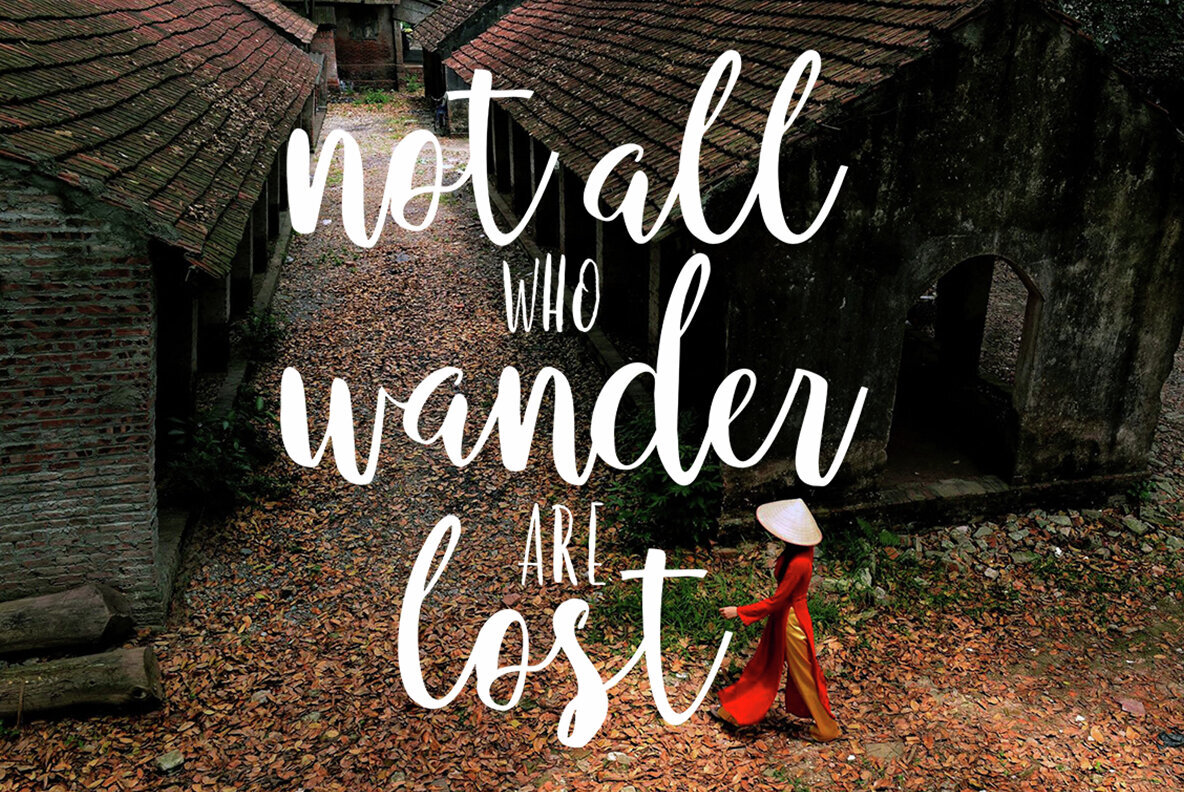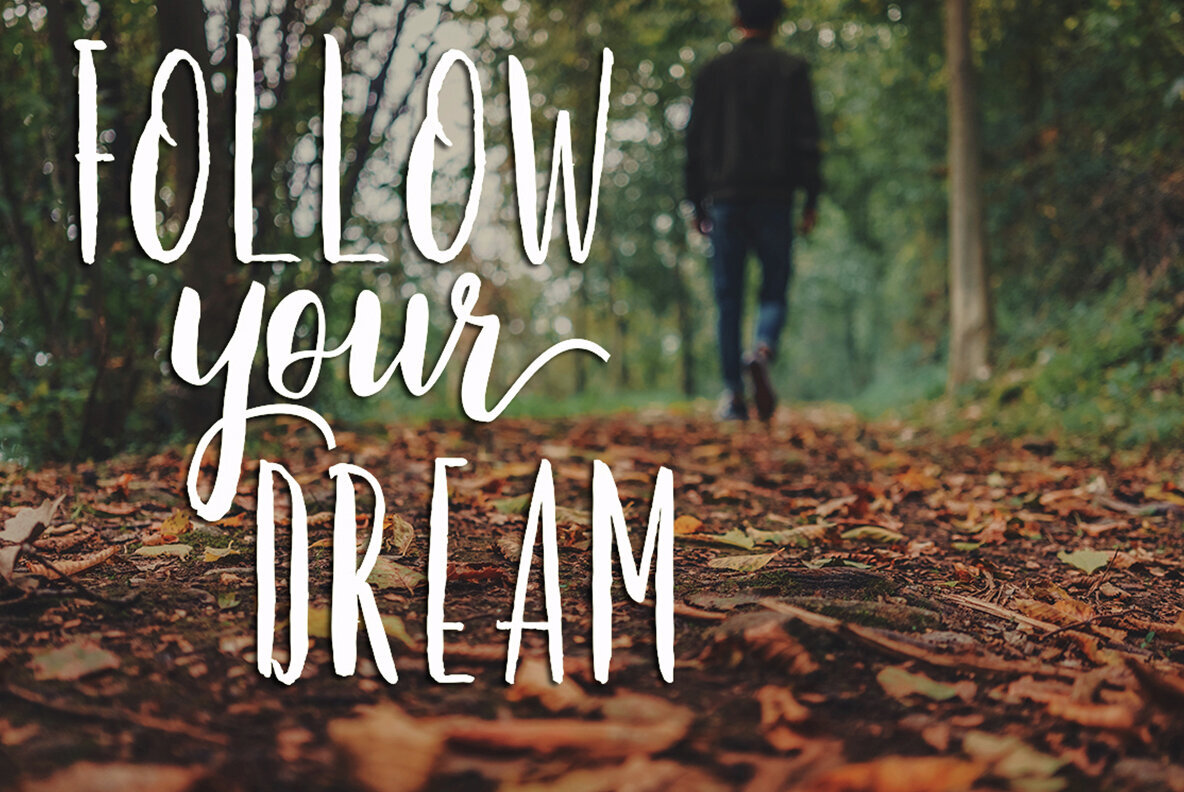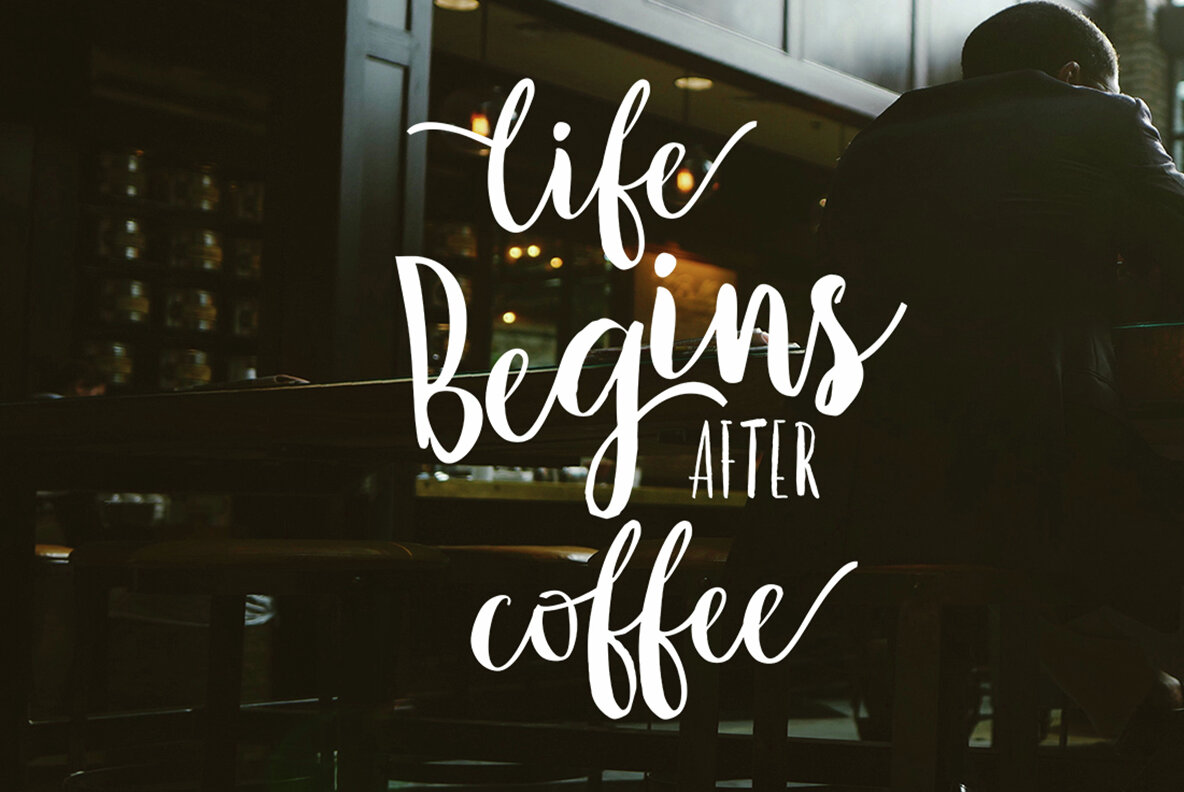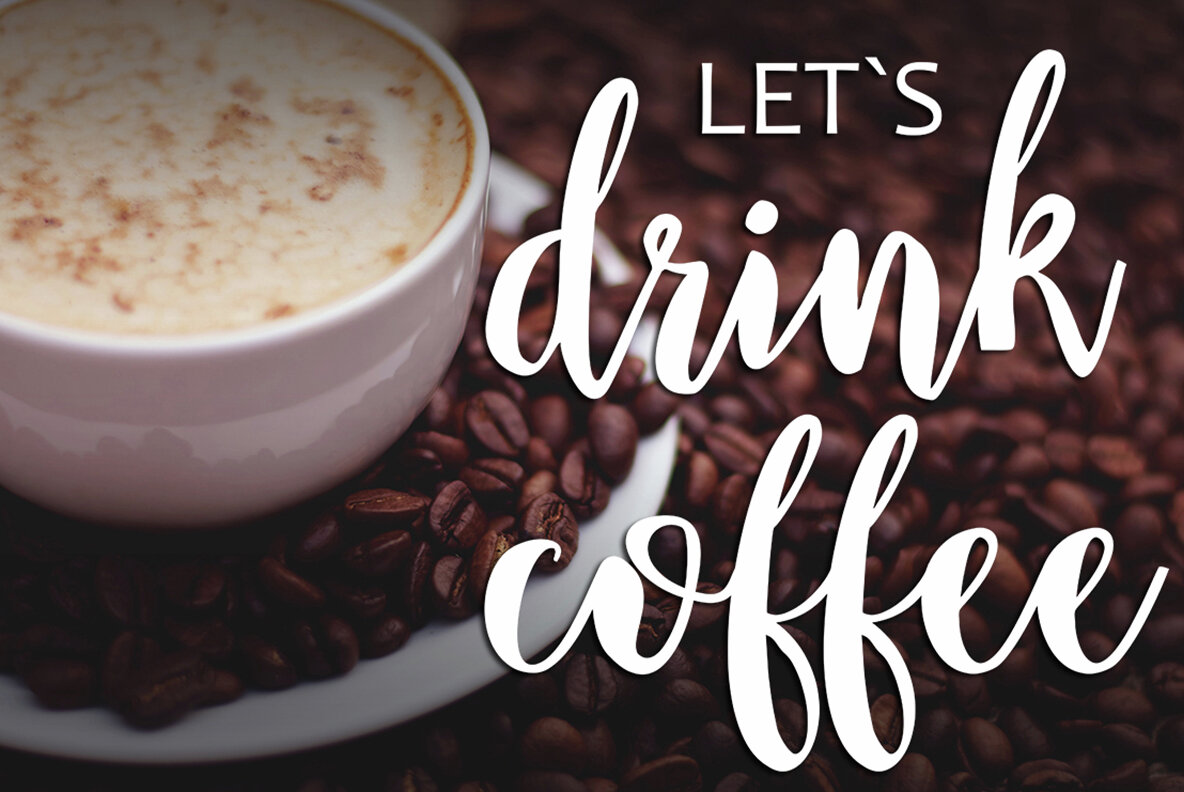
Girlboss Font
Girlboss Script is a modern brush font characterized by its organic, dynamic, and energetic style. Ideal for a variety of design applications, Girlboss Script can be used to create titles, signatures, logos, correspondence, wedding invitations, letterheads, signage, labels, newsletters, posters, and badges. This versatile font seamlessly adapts to both formal and informal design settings.
To make the most of its OpenType Stylistic alternates, use design programs that support OpenType features, such as Adobe Illustrator CS, Adobe InDesign, CorelDraw X6-X7, or Microsoft Word 2010 and later versions. This allows you to experiment with alternate styles and customize your projects effortlessly. With its stylish aesthetic, Girlboss Script is an excellent choice for designers looking to infuse creativity and energy into their work.